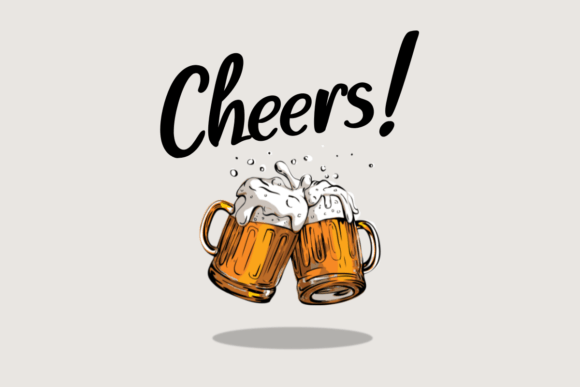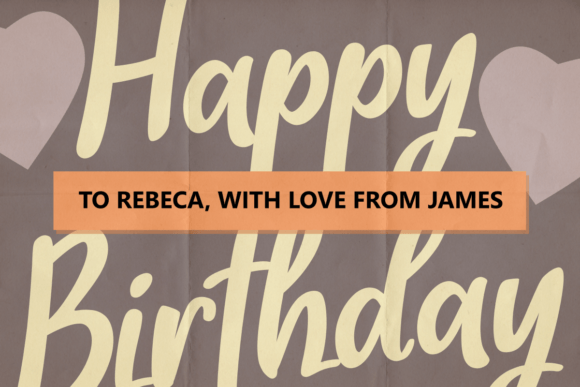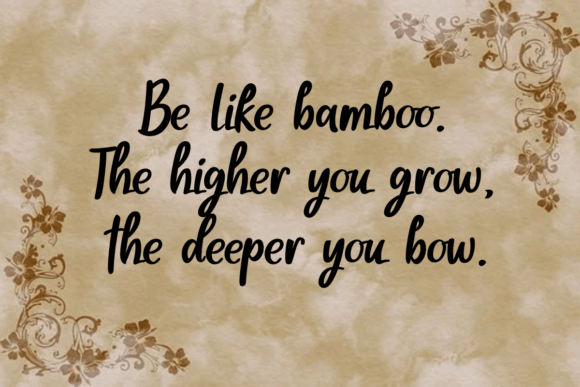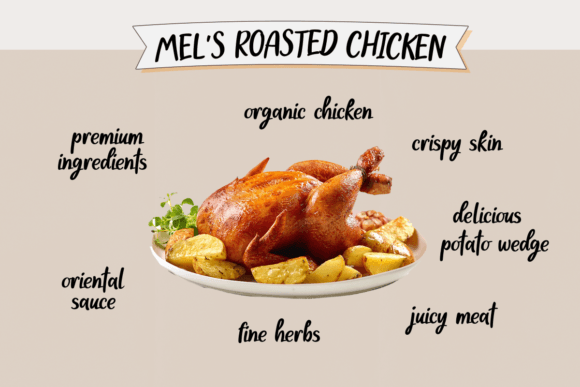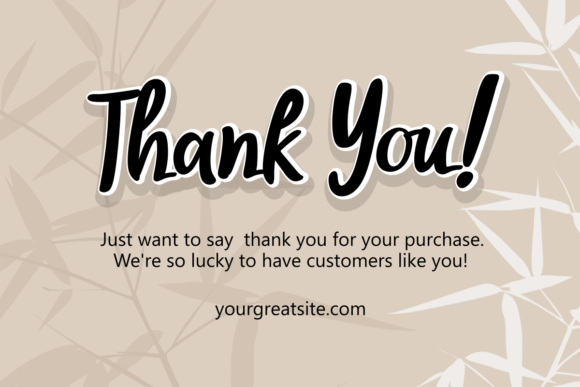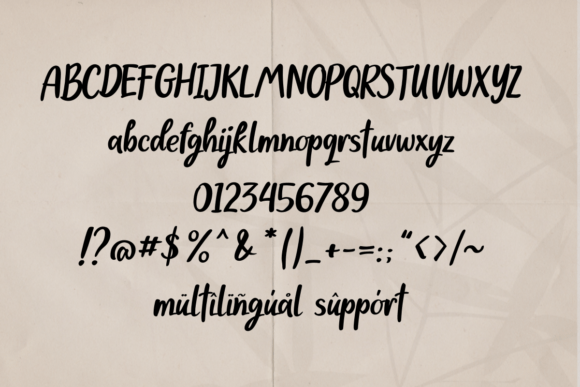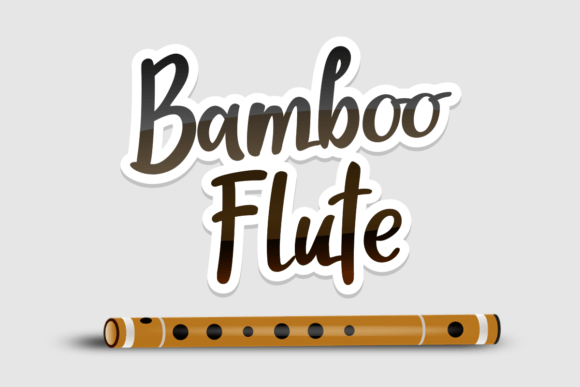
Bamboo Flute Font: Elevate Your Designs with a Handwritten Touch
Are you a designer or crafter looking for a unique and creative way to add a personal touch to your projects? Look no further than the Bamboo Flute font, a beautiful handwritten font that is perfect for a wide range of applications. In this article, we’ll explore the features and benefits of the Bamboo Flute font, and show you how to incorporate it into your designs.
What is Bamboo Flute Font?
Bamboo Flute is a handwritten font that is great for wall displays, social media posts, logos, advertisements, product packaging, product designs, labels, photography, watermarks, stationery, and any project that requires a handwritten taste. This font is designed to give your projects a personal and organic feel, making it perfect for crafters, designers, and anyone looking to add a touch of elegance to their work.
Key Features of Bamboo Flute Font
- Handwritten style: Bamboo Flute font has a beautiful, handwritten style that gives your projects a personal touch.
- Versatile: This font is perfect for a wide range of applications, from wall displays and social media posts to logos, advertisements, and product packaging.
- Elegant and refined: The Bamboo Flute font has an elegant and refined feel, making it perfect for designers and crafters who want to add a touch of sophistication to their work.
Benefits of Using Bamboo Flute Font
So why should you choose the Bamboo Flute font for your projects? Here are just a few benefits of using this beautiful font:
- Adds a personal touch: The Bamboo Flute font gives your projects a personal and organic feel, making them stand out from the crowd.
- High-quality: The Bamboo Flute font is a high-quality font that is designed to produce crisp, clear text at any size.
Design Ideas Using Bamboo Flute Font
The Bamboo Flute font is versatile and can be used in a wide range of applications. Here are some design ideas to get you started:
- Wall displays: Use the Bamboo Flute font to create beautiful wall displays for your home or office.
- Social media posts: Add a personal touch to your social media posts using the Bamboo Flute font.
- Logos and branding: Use the Bamboo Flute font to create a unique and elegant logo for your business.
- Product packaging: Add a touch of elegance to your product packaging using the Bamboo Flute font.
| Font Name | Bamboo Flute Font |
| Author | Deedeetype |
In conclusion, the Bamboo Flute font is a beautiful handwritten font that is perfect for designers and crafters who want to add a personal touch to their projects. With its elegant and refined feel, this font is versatile and can be used in a wide range of applications. Whether you’re creating wall displays, social media posts, logos, or product packaging, the Bamboo Flute font is a great choice.